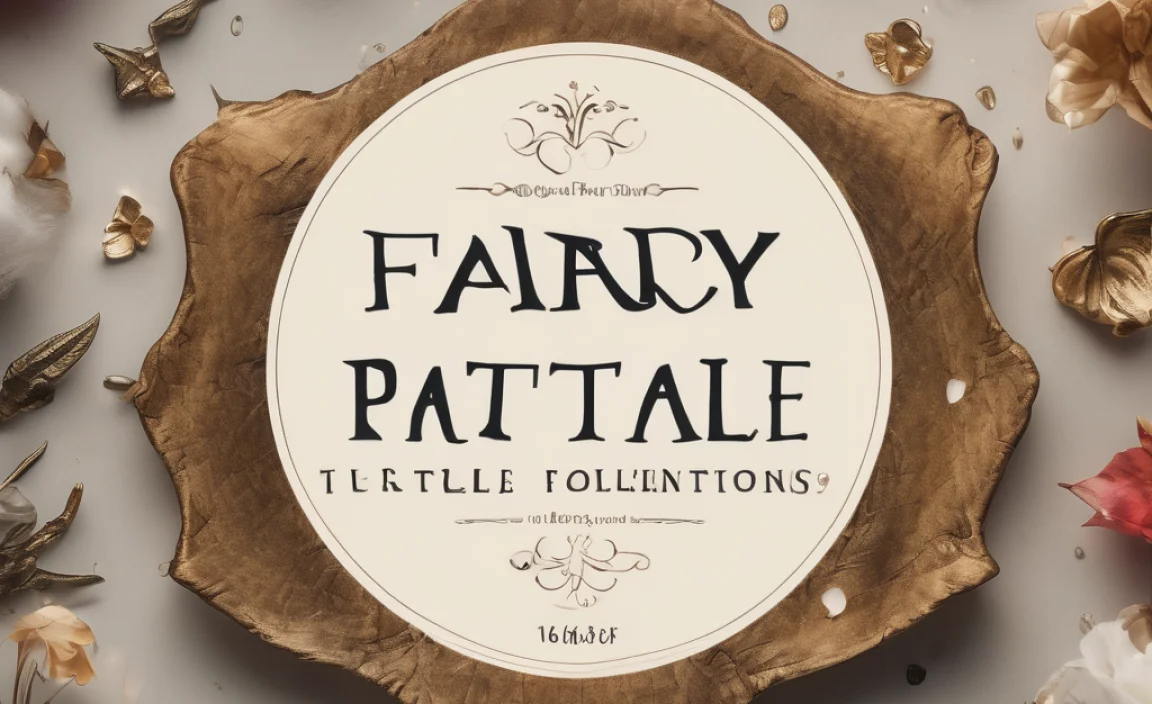
Fairy tale fonts bring magic, charm, and whimsy to any design project. Designed by various creators like Woodcutter and Hanoded, these fonts are perfect for book covers, branding, and creative illustrations. With decorative elements, stylistic alternates, and special characters, fairy tale fonts enchant typography.
Why Use Fairy Tale Fonts?
Fairy tale fonts are more than just text; they bring stories to life. They are inspired by fables, legends, and magical worlds, making them a great choice for fantasy branding and storytelling. Whether for a children’s book, website, or promotional material, these fonts add an element of wonder.
Think about the last time you read a bedtime story as a child. The words seemed to dance off the page, weaving an enchanting world filled with castles, fairies, and magic spells. That’s the kind of experience fairy tale fonts create. They don’t just spell out words; they set the mood, evoke emotions, and make a brand or book feel like part of a legendary tale.
Best Uses For Fairy Tale Fonts
Not sure where to use fairy tale fonts? Here are some top picks:
- Book Covers & Storybooks – Perfect for children’s books and fantasy novels.
- Logos & Branding – Adds a whimsical and elegant feel to businesses.
- Greeting Cards & Invitations – Enhances messages with a charming touch.
- Posters & Marketing Materials – Grabs attention with decorative text.
- Websites & Digital Designs – Ideal for fantasy and story-driven websites.
- Adobe Illustrator & Graphic Projects – Great for typography-based art.
Imagine you’re designing a book cover for a fairytale-themed novel. Would you use a rigid, modern font? Probably not. A fairy tale font like Beyond Wonderland or Enchanted Land would instantly transport readers to a magical world before opening the book. That’s the power of typography.
Popular Fairy Tale Font Families
If you’re searching for the perfect fairy tale font, here are some popular choices designers love:
- Fairy Tales by Woodcutter – A dingbat font with fantasy illustrations.
- Beyond Wonderland – A decorative font with a vintage fantasy feel.
- Enchanted Land – Elegant, serif font perfect for magical branding.
- Blackwood Castle – A medieval-inspired typeface with a gothic touch.
- Dark Mystic – Ideal for storybook covers and fantasy designs.
- Magical Source – A whimsical script font with charm and elegance.
These fonts help capture the essence of enchanted forests, ancient castles, and mythical creatures. Whether you need something bold and gothic or light and ethereal, there’s a fairy tale font to match your vision.
Features of a Great Fairy Tale Font
What makes a fairy tale font stand out? Look for these elements:
- Stylized Letters – Unique flourishes, curves, and decorative details.
- Dingbats & Symbols – Hearts, stars, and magical elements enhance the theme.
- Serif & Script Styles – Adds an elegant yet playful touch.
- Fantasy-Inspired Elements – Patterns, flourishes, and artistic letterforms.
Great typography should feel like a story unfolding before your eyes. The swirls and curls of each letter should evoke the feel of an old parchment scroll or a handwritten spellbook. Every detail matters when designing a fairy tale brand or creative project.
How to Choose the Right Fairy Tale Font
Before selecting a font, consider these factors:
- Your Project’s Theme – A script font may suit a greeting card, while a serif font is ideal for a book cover.
- Readability: Ensure the font is legible for both print and digital use.
- Stylistic Alternates: Choose fonts with extra flourishes and decorative options.
- Licensing – Check if the font is free for personal or commercial use.
Let’s say you’re designing an invitation for a fairytale wedding. A highly ornate font might look stunning, but it defeats the purpose if guests can’t read the details. Balancing beauty and functionality is key.
How to Use Fairy Tale Fonts Effectively
Want to make the most of your fairy tale fonts? Here are some expert tips:
1. Combine Fonts
Pair a decorative fairy tale font with a simple sans-serif or serif font for contrast. For example, use Blackwood Castle for the title and a clean font like Lato for body text.
2. Use Symbols & Dingbats
Many fairy tale fonts come with special characters like stars, crowns, or enchanted creatures. Use these to enhance your designs and add magical flair.
3. Experiment with Text Elements
Adjust spacing, line height, and letter sizing to create visually striking compositions. Play with stylistic alternates to add personality to your typography.
4. Apply to Multiple Media
Fairy tale fonts aren’t just for books! Use them in social media graphics, merchandise designs, and even YouTube thumbnails to capture attention instantly.
What Are Stylistic Alternates In Fairy Tale Fonts?
These are decorative variations of letters that add extra charm and personality to the typography.
Which Fairy Tale Font Is Best For Logos?
A serif or script font with decorative elements works best for fantasy branding.
How Do Fairy Tale Fonts Enhance Branding?
They create an emotional connection by adding nostalgia, charm, and a sense of magic.